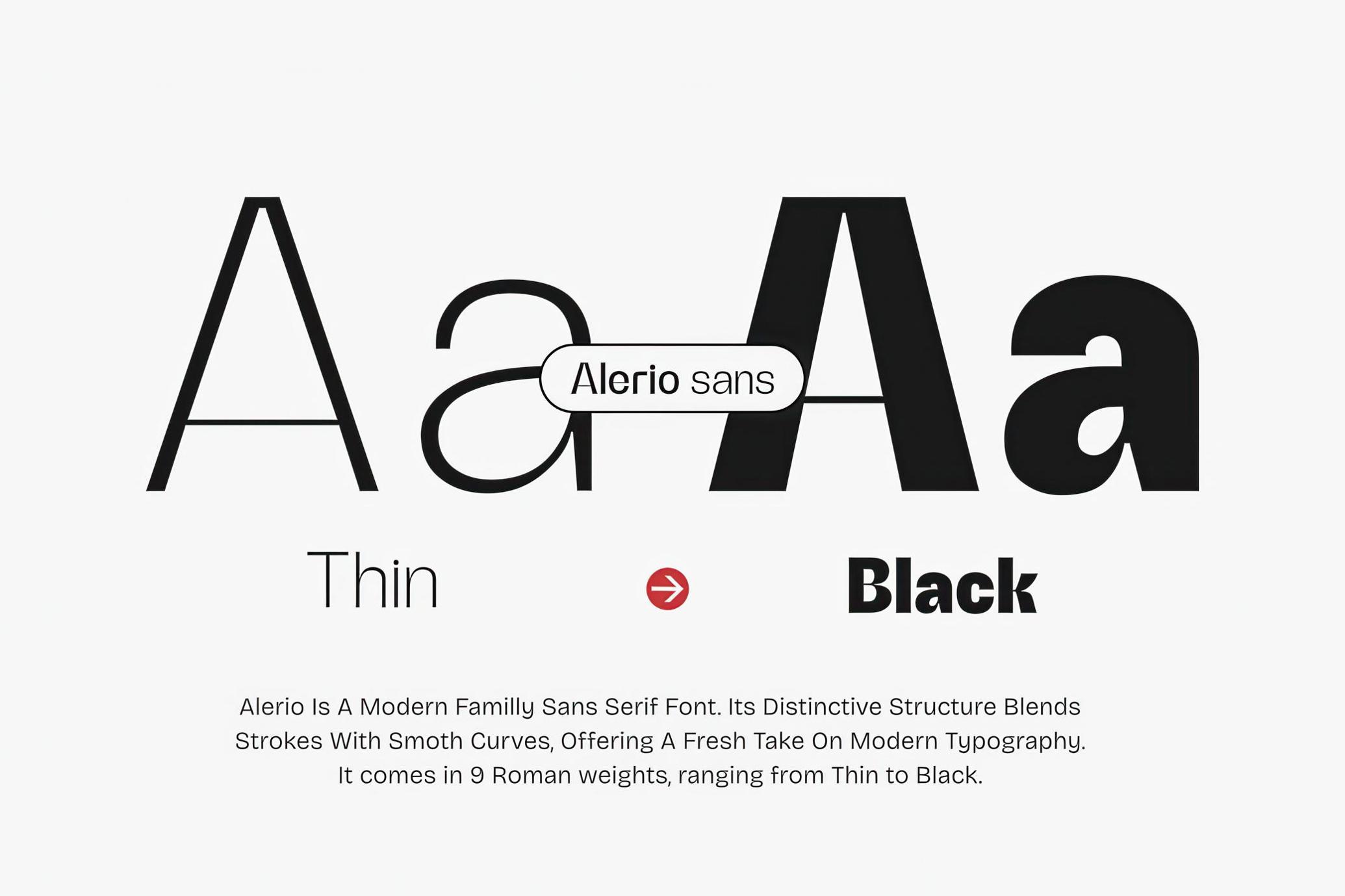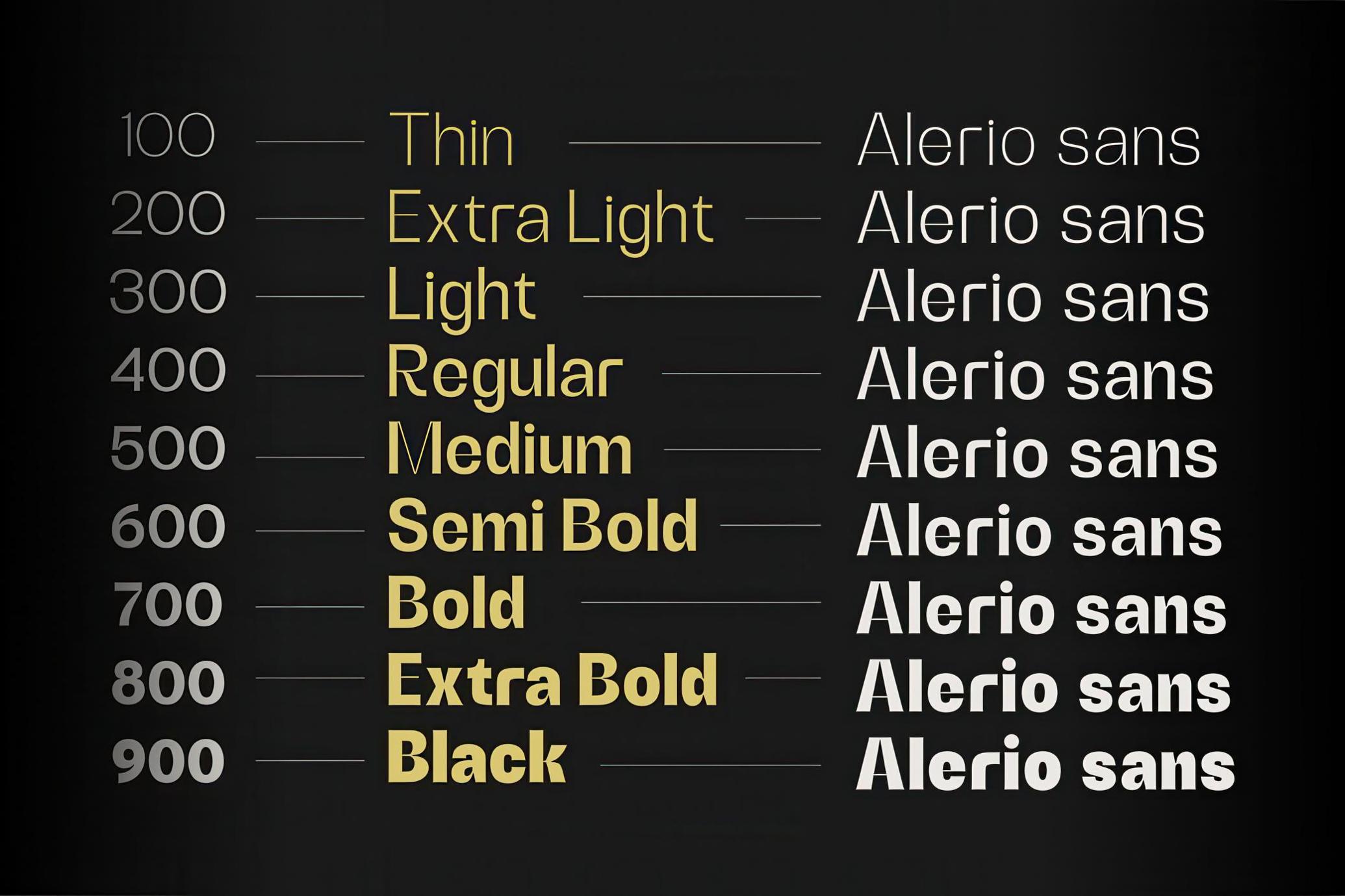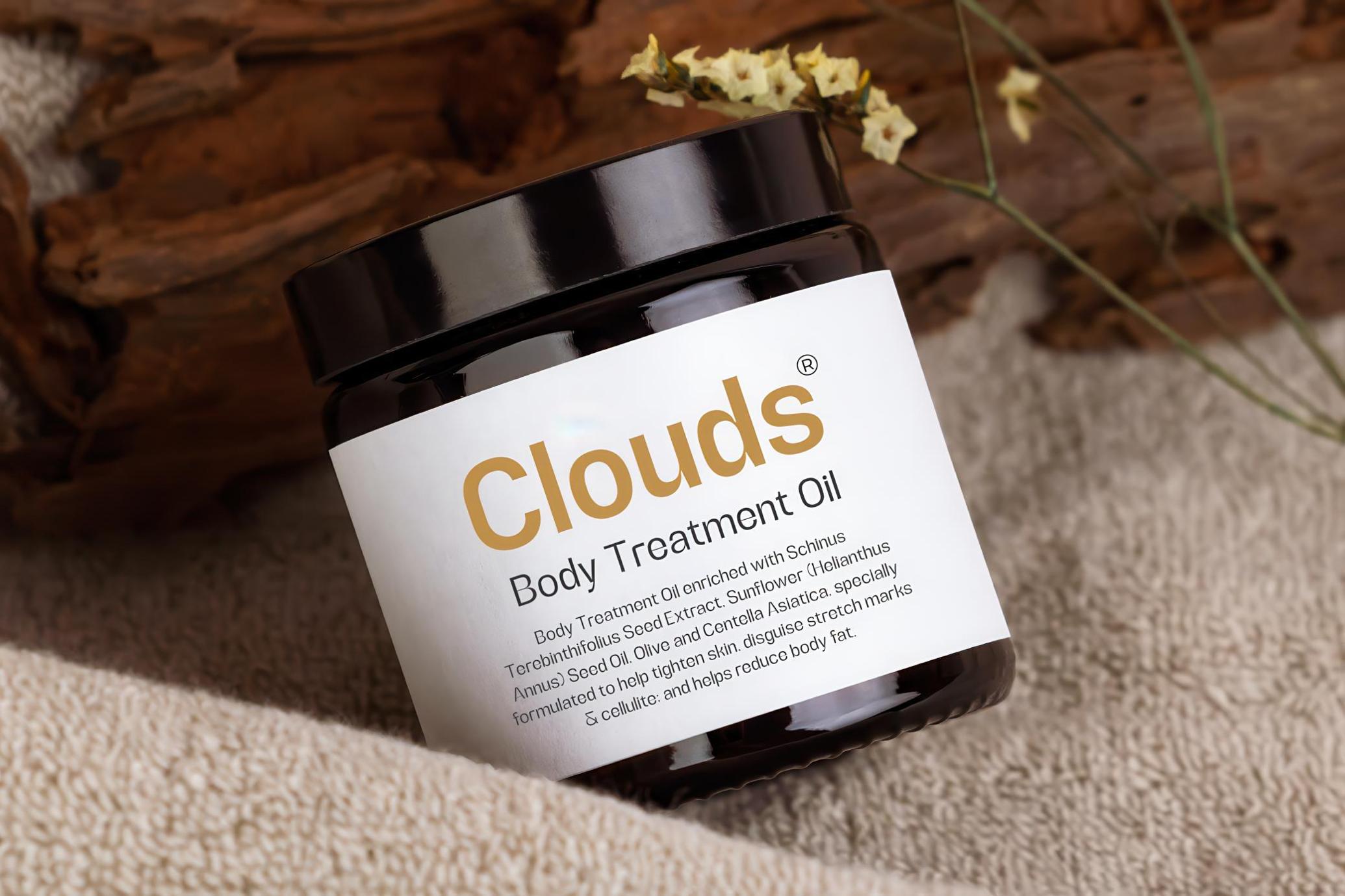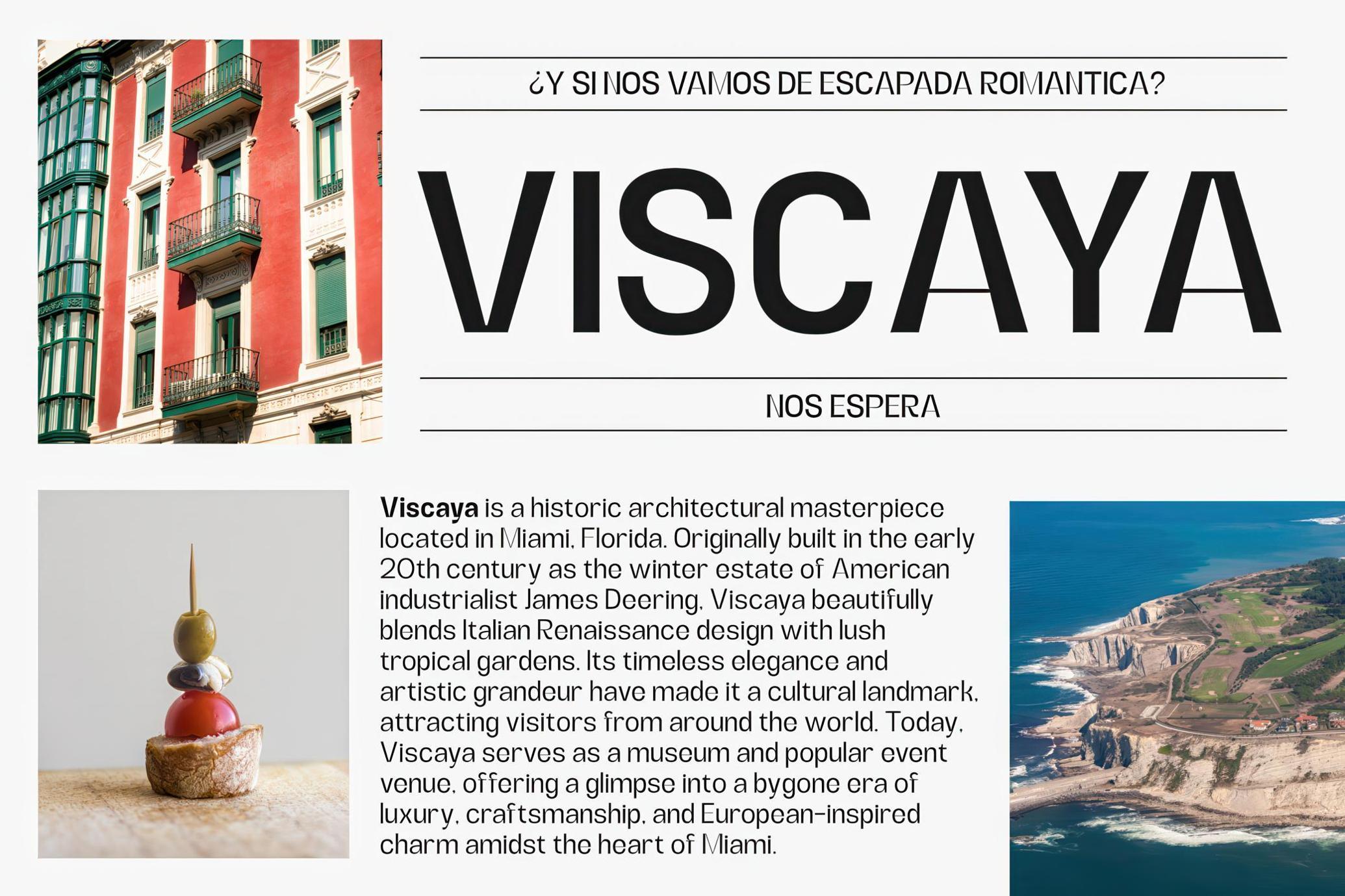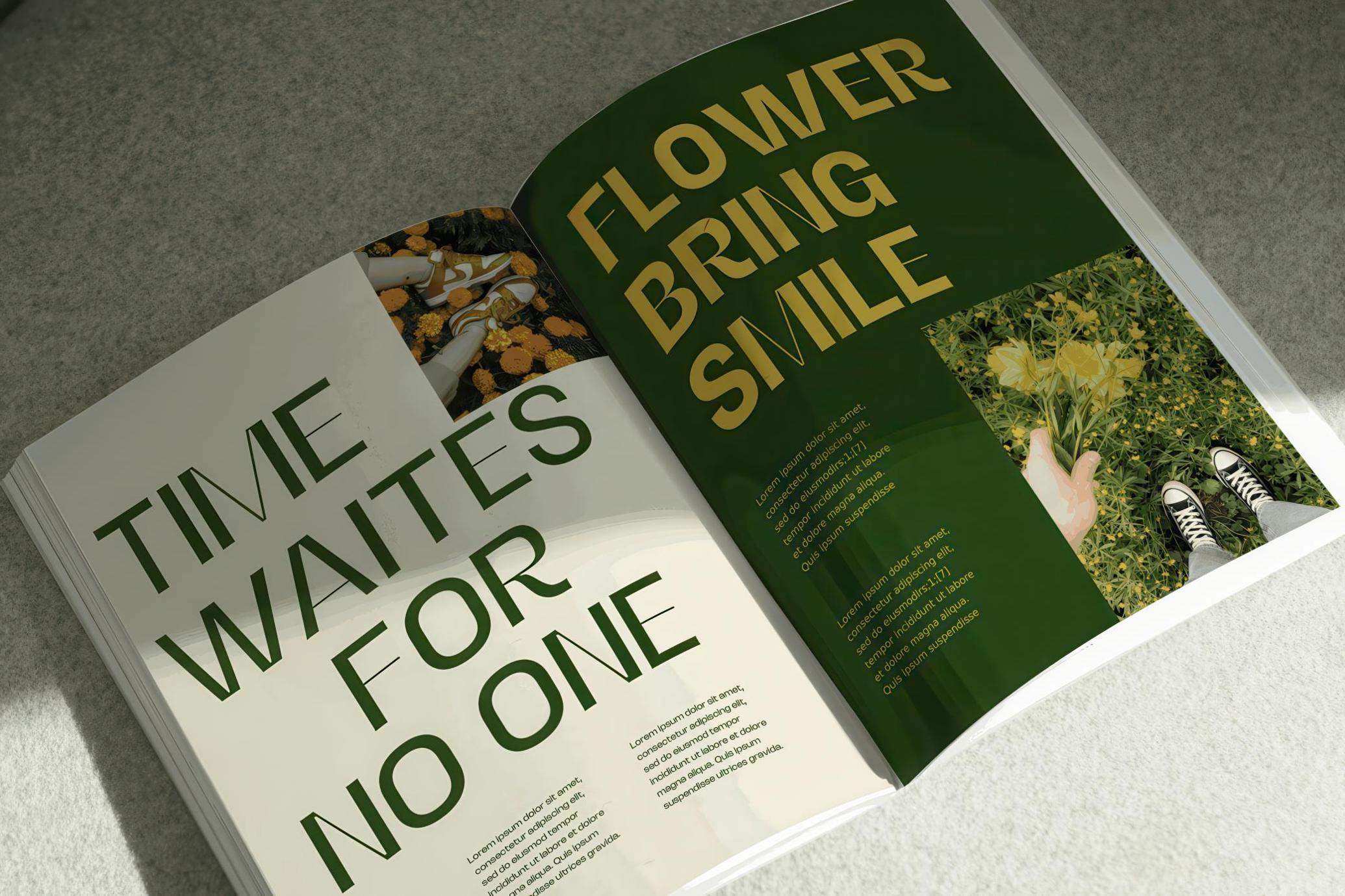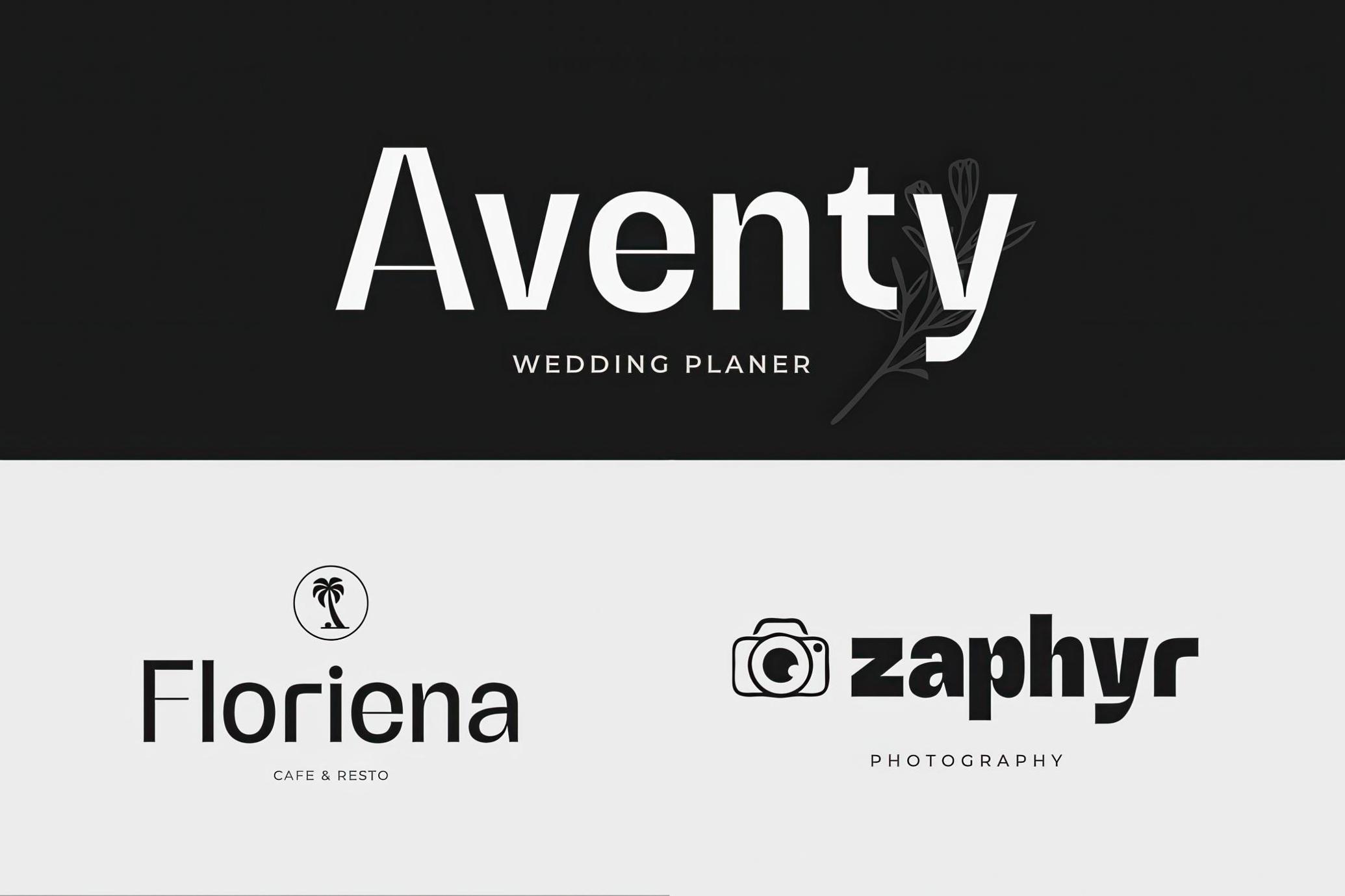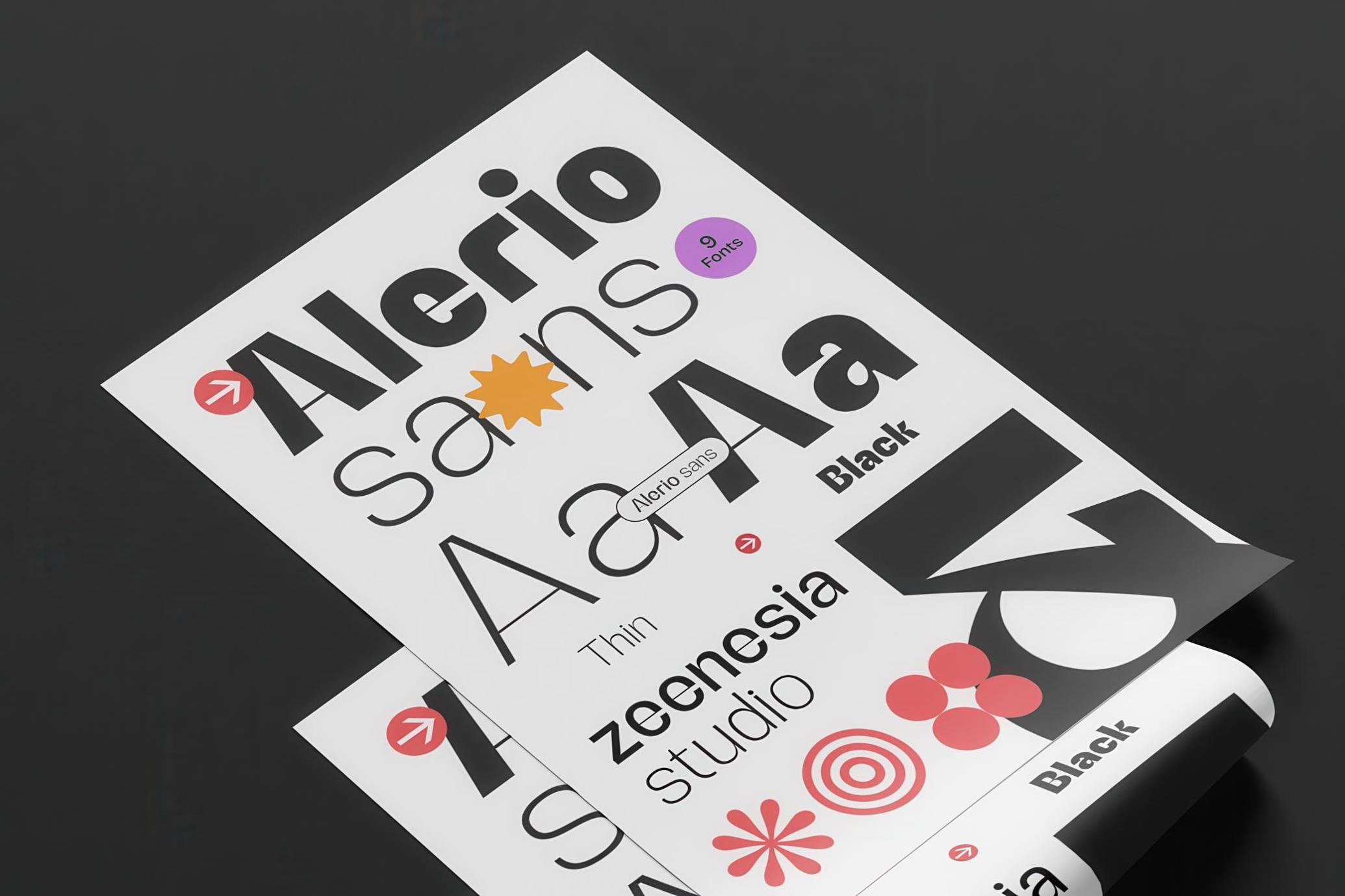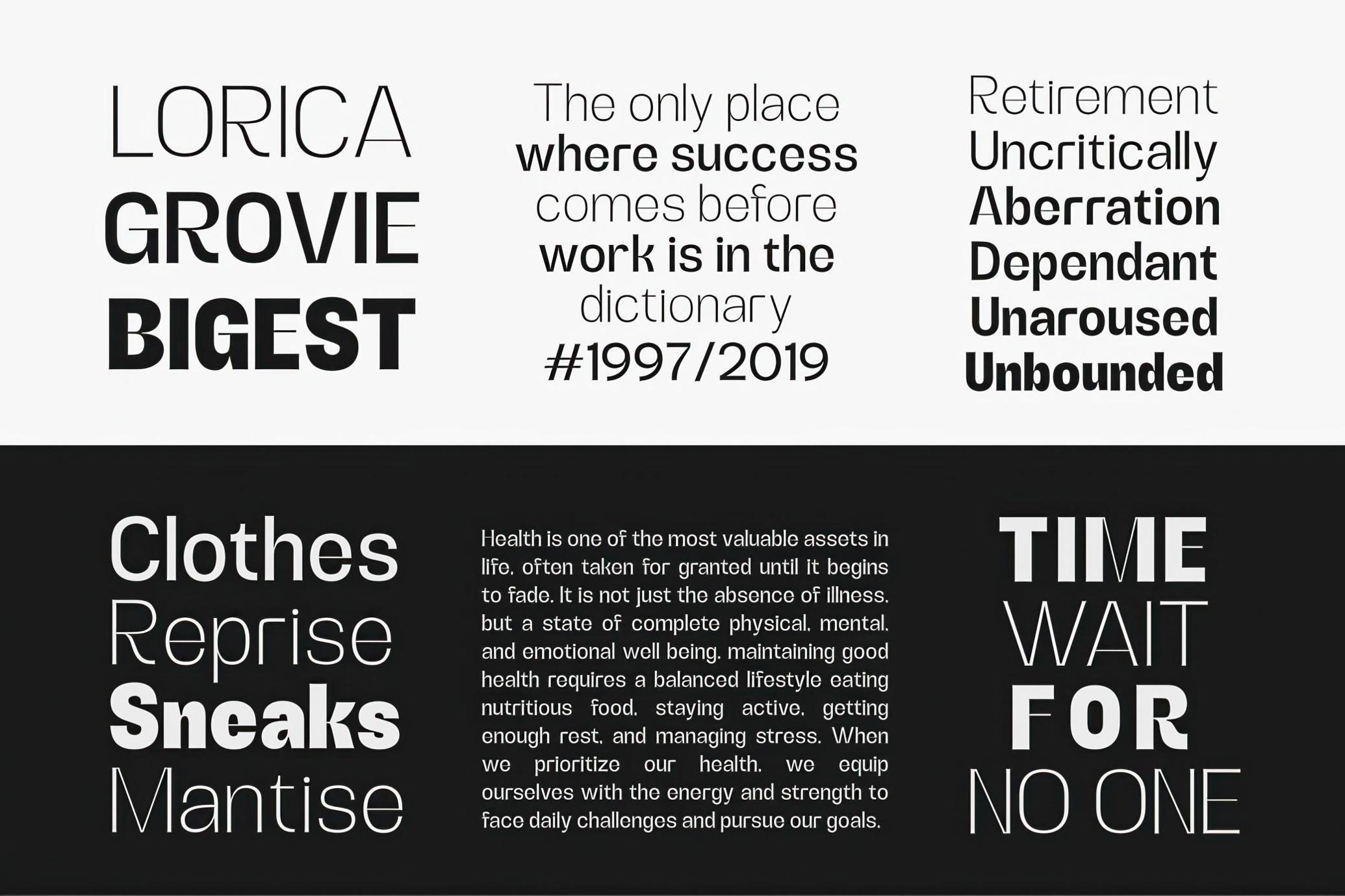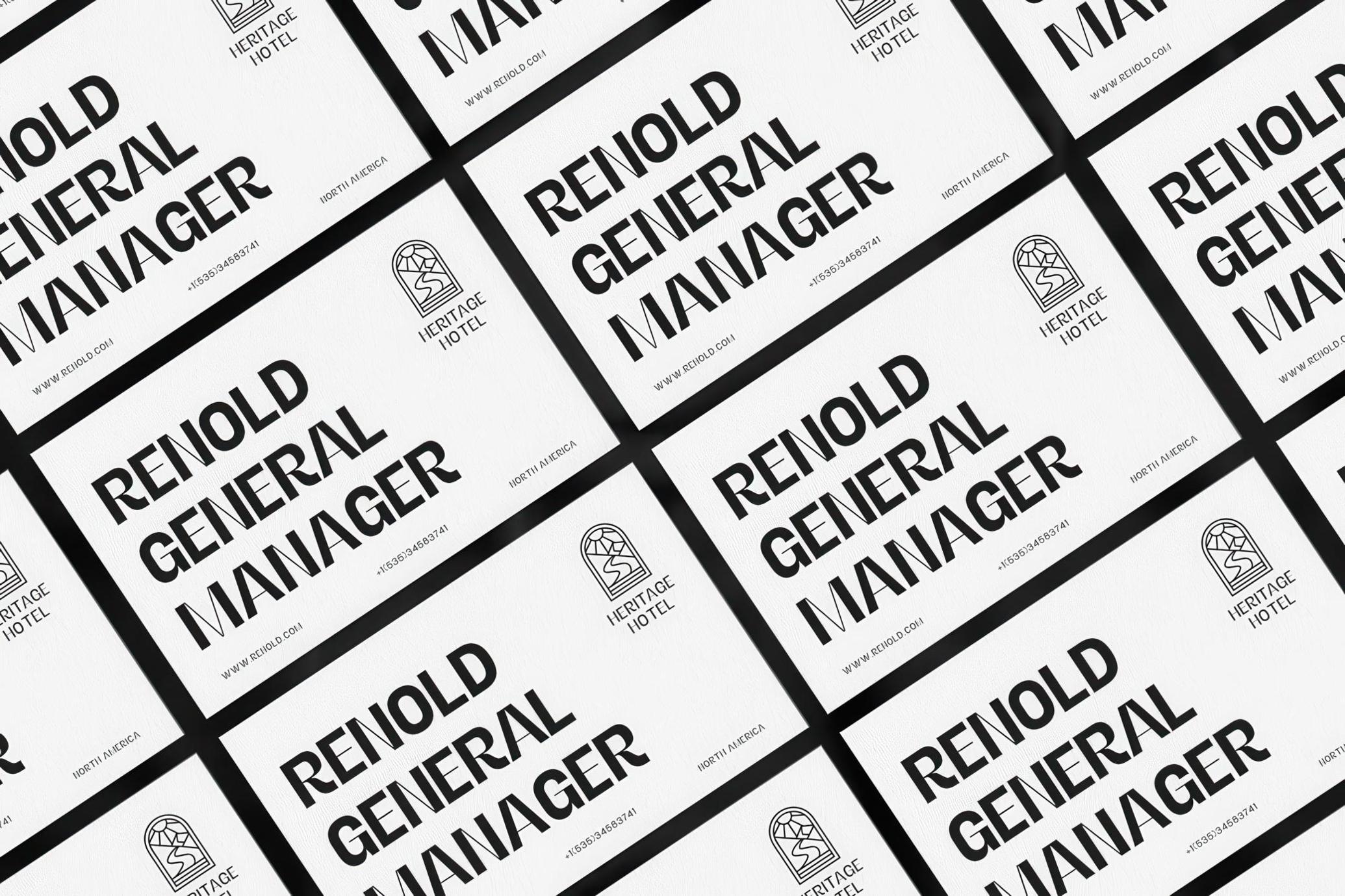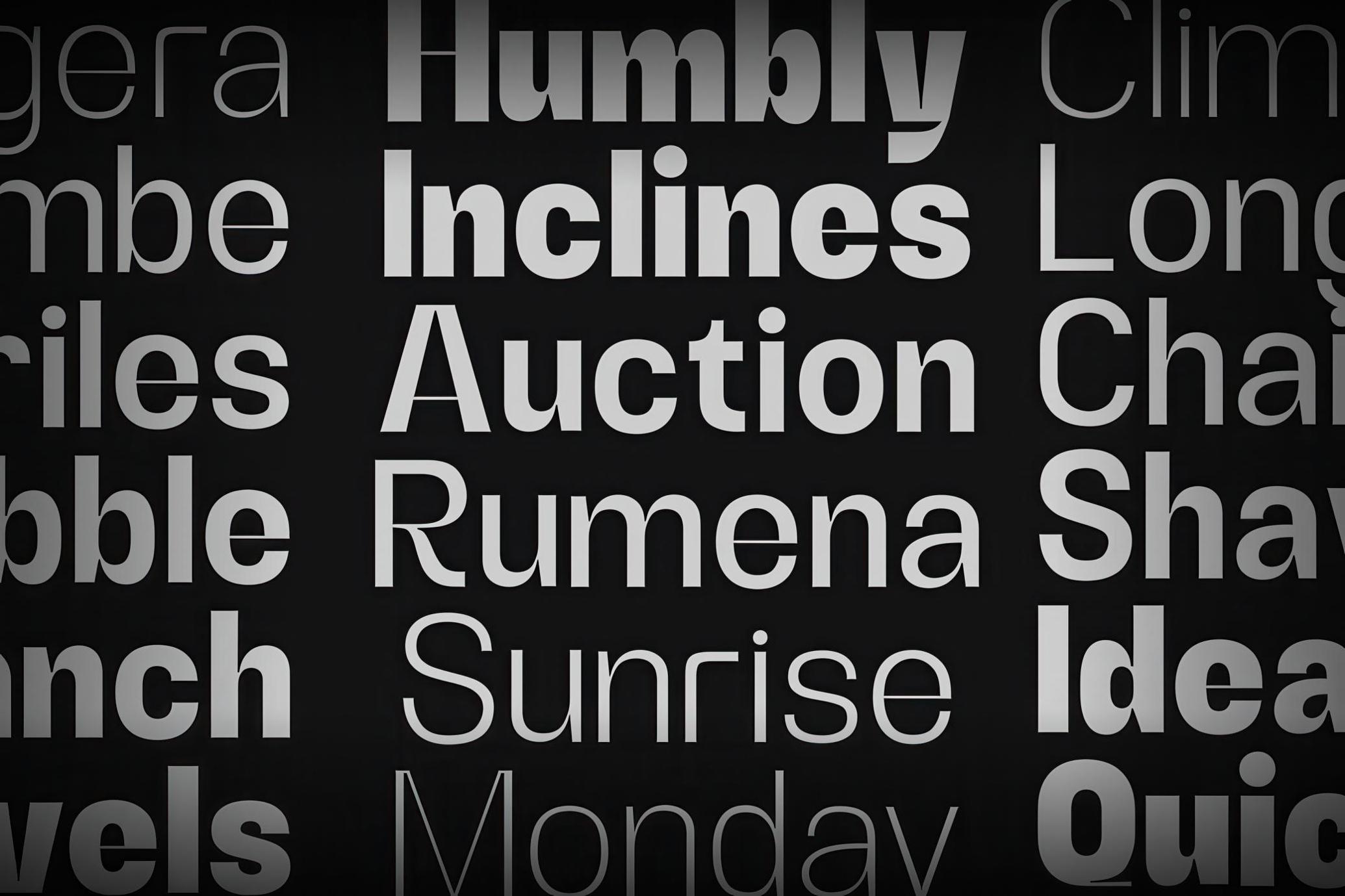
Alerio Sans Serif
Alerio Sans delivers a clean, composed voice across its nine weights. Its geometric foundation is softened by subtle curves and generous spacing, giving the typeface a confident presence. The letterforms feel intentional, shaped for clarity across headlines, paragraphs, and interface elements alike.
This type family is versatile, working across a broad spectrum of applications, including tech branding, fashion editorials, pitch decks, minimalist websites, packaging systems, UI design, and signage. Each weight carries its own tone while maintaining consistency throughout the set.